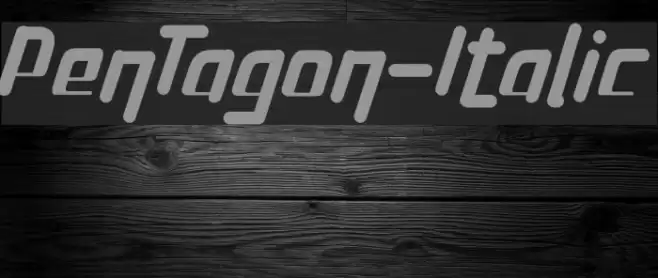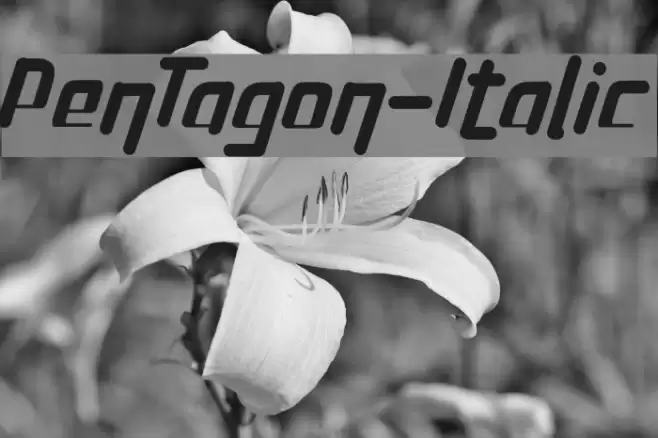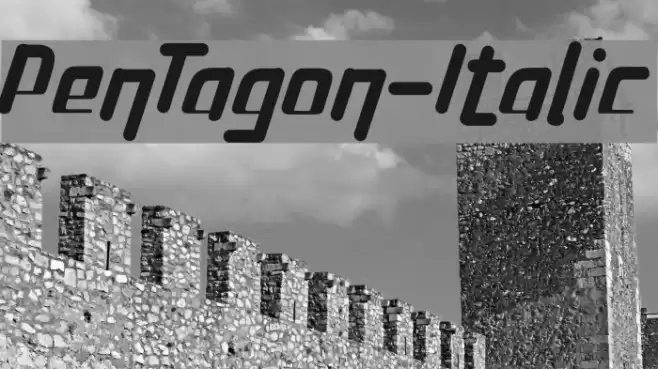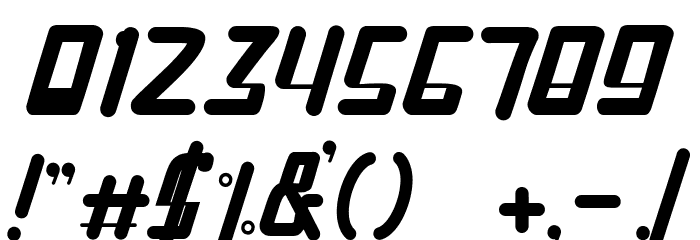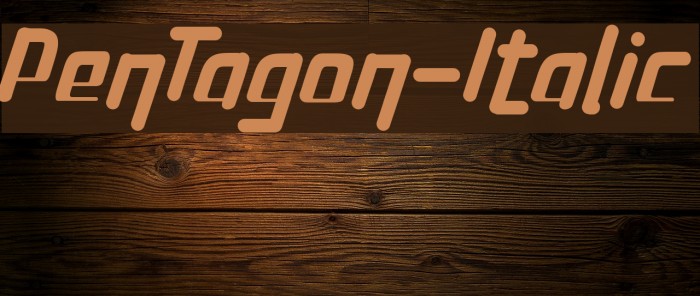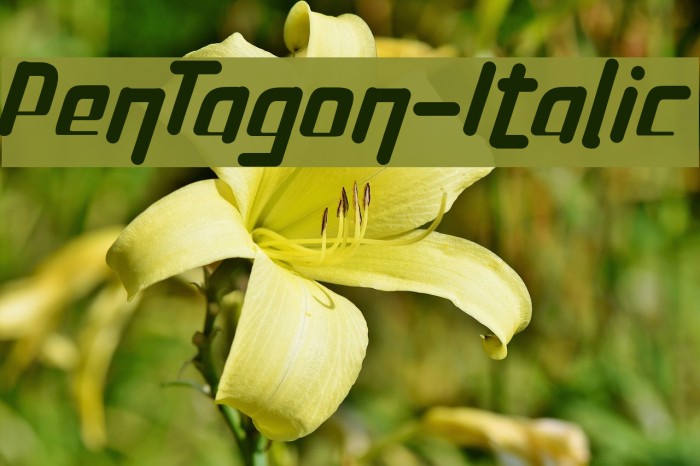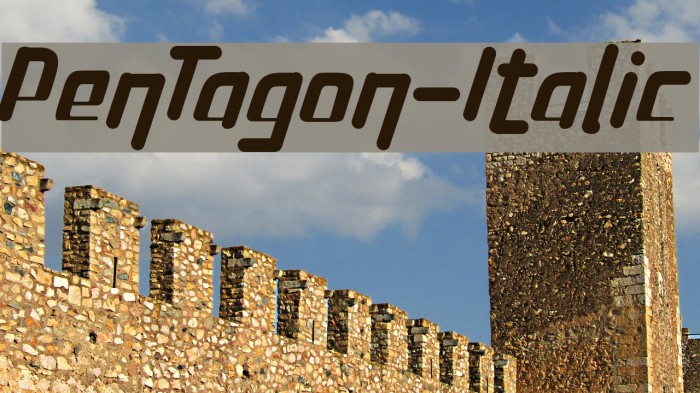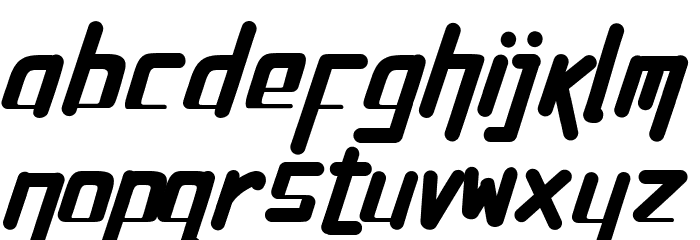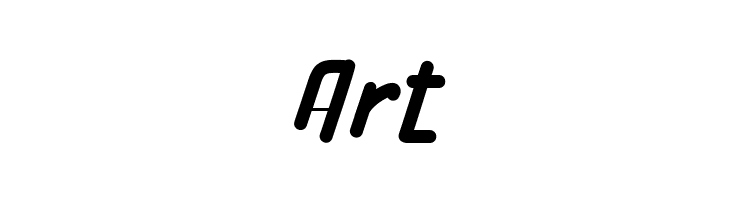
PenTagon-Italic Font
PenTagon-Italic Description
This font features a bold and dynamic italic style, characterized by its slanted and slightly condensed letterforms. The strokes are thick and consistent, giving it a strong presence on the page. The uppercase and lowercase letters maintain a uniform slant, enhancing the cohesive look. The numerals and special characters follow the same stylistic approach, ensuring versatility across different uses. Its modern and energetic appearance makes it suitable for projects that require a bold statement.
A bold, italic font with a dynamic and modern style from Uncategorized fonts.
- Proposed Projects: Ideal for sports branding, dynamic posters, modern advertisements, and eye-catching headlines.